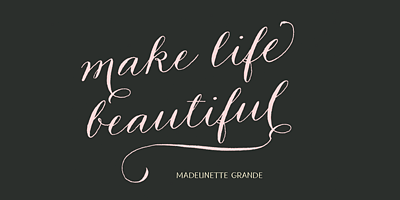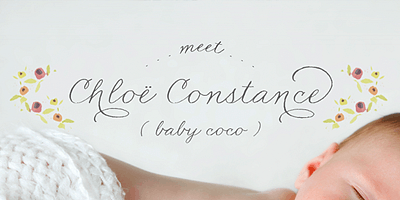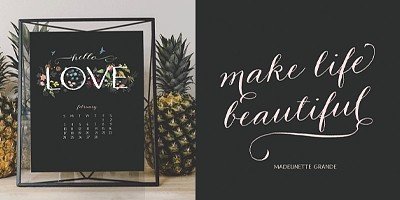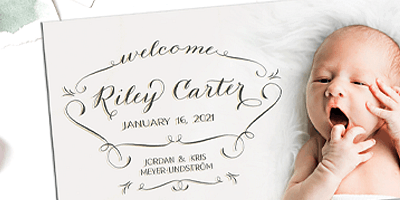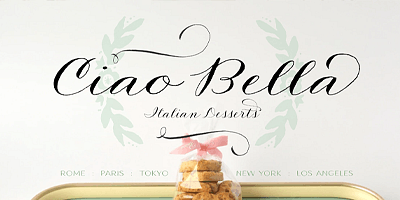
Madelinette is a calligraphy script based on the Palmer Method designed with classic roman fonts as a harmonious family enhanced with Opentype magic. Think handcrafted beauty and tradition. An impeccable choice for wine labels, romantic themes and stationery.